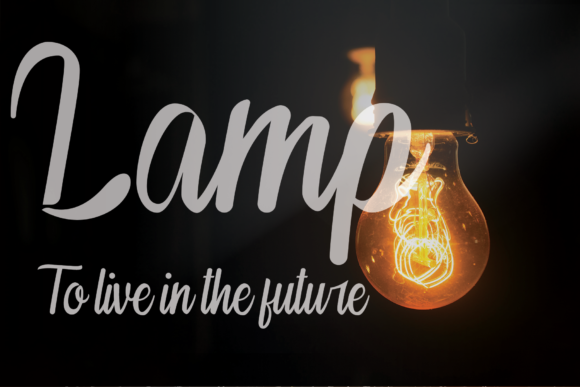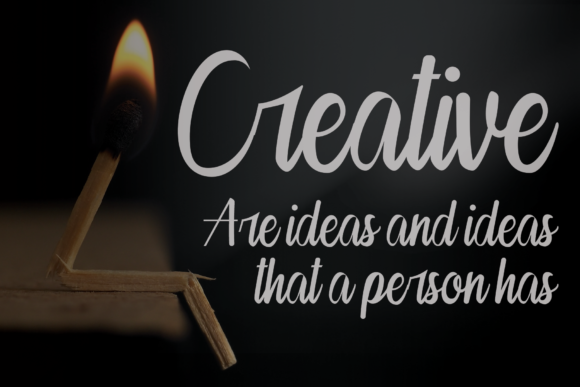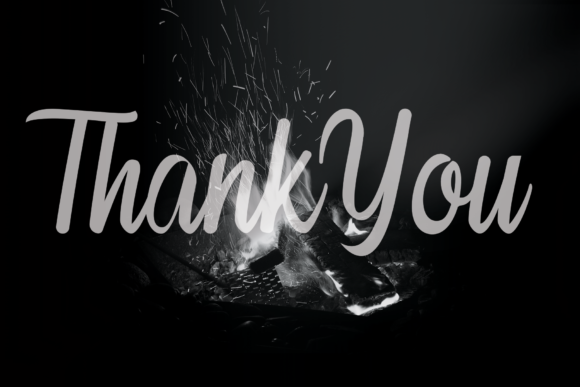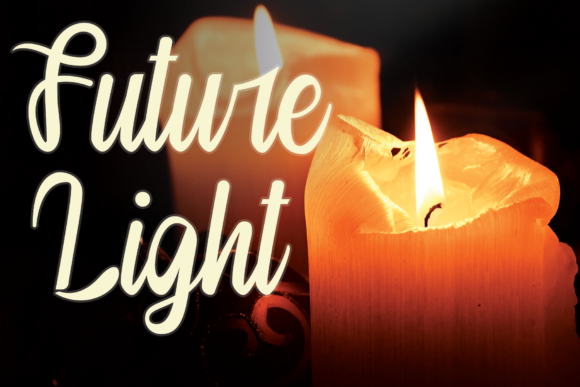
Discover the Elegance of Future Light Font: Elevate Your Designs with a Timeless Touch
In the world of typography, fonts play a crucial role in conveying messages, expressing emotions, and creating a lasting impression. For designers and crafters seeking a unique and elegant touch, Future Light Font is an exceptional choice. This flowing handwritten font is characterized by its distinct and timeless style, making it perfect for a wide range of projects. In this article, we’ll explore the features and benefits of Future Light Font, and how it can help you create spectacular designs that captivate your audience.
The Distinctive Charm of Future Light Font
Future Light Font boasts an incredibly distinct style that sets it apart from other fonts. Its elegant touch is evident in its flowing lines, curves, and subtle variations in line width. This font is designed to evoke a sense of sophistication, making it ideal for projects that require a touch of refinement. Whether you’re working on a luxury brand, a high-end product, or a creative project, Future Light Font is sure to impress.
Timeless Appeal
One of the standout features of Future Light Font is its timeless appeal. Unlike trendy fonts that may quickly go out of style, Future Light Font has a classic quality that ensures it will remain relevant for years to come. Its elegant design and flowing lines create a sense of continuity, making it perfect for projects that require a sense of tradition and heritage. Whether you’re creating a logo, a brochure, or a website, Future Light Font will add a touch of sophistication and elegance.
Future Light Font is an incredibly versatile font that can be used for a wide range of projects. Its elegant design makes it perfect for:
- Logos and branding: Create a lasting impression with a unique and elegant logo that reflects your brand’s personality.
- Print materials: Use Future Light Font to create stunning brochures, flyers, and business cards that exude sophistication.
- Web design: Add a touch of elegance to your website with Future Light Font, perfect for headers, titles, and other design elements.
- Packaging: Create eye-catching packaging that stands out on store shelves with Future Light Font.
- Crafting: Use Future Light Font to add a personal touch to your crafting projects, such as handmade cards, invitations, and scrapbooking.
Why Choose Future Light Font?
With so many fonts available, why choose Future Light Font? Here are just a few reasons:
- Unique and distinctive: Future Light Font stands out from the crowd with its elegant and flowing design.
- Timeless appeal: This font has a classic quality that ensures it will remain relevant for years to come.
- Versatile: Future Light Font can be used for a wide range of projects, from logos and branding to web design and crafting.
- Easy to read: Despite its elegant design, Future Light Font is easy to read, making it perfect for body text and other applications.
Tips for Using Future Light Font
To get the most out of Future Light Font, here are a few tips:
- Use it sparingly: Future Light Font is a statement font, so use it sparingly to create a lasting impression.
- Pair it with other fonts: Experiment with pairing Future Light Font with other fonts to create a unique and interesting contrast.
- Adjust the size and style: Play with different sizes and styles to create visual interest and hierarchy.
| Font Name | Future Light Font |
Future Light Font is an exceptional choice for designers and crafters seeking a unique and elegant touch. Its distinctive charm, timeless appeal, and versatility make it perfect for a wide range of projects. Whether you’re creating a logo, a brochure, or a website, Future Light Font is sure to impress. With its easy-to-read design and classic quality, this font is sure to become a staple in your design arsenal. So why wait? Fall in love with Future Light Font and elevate your designs to new heights!